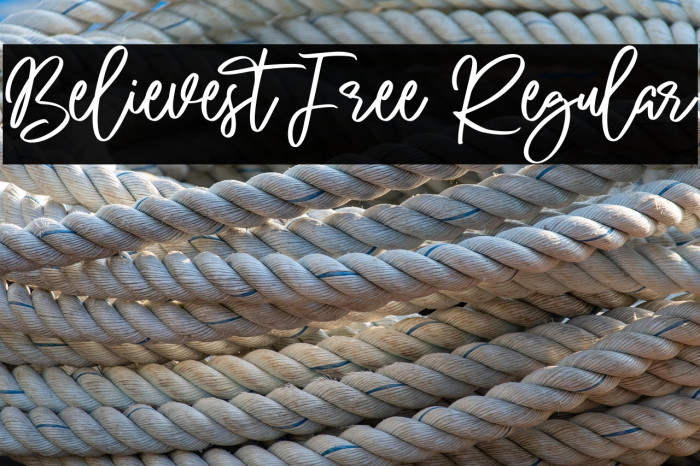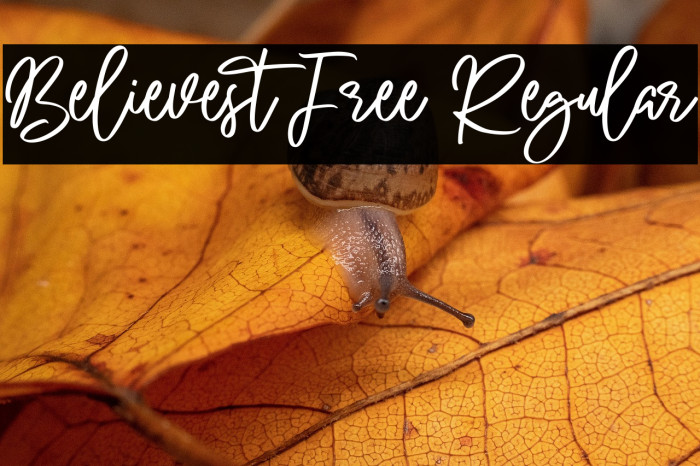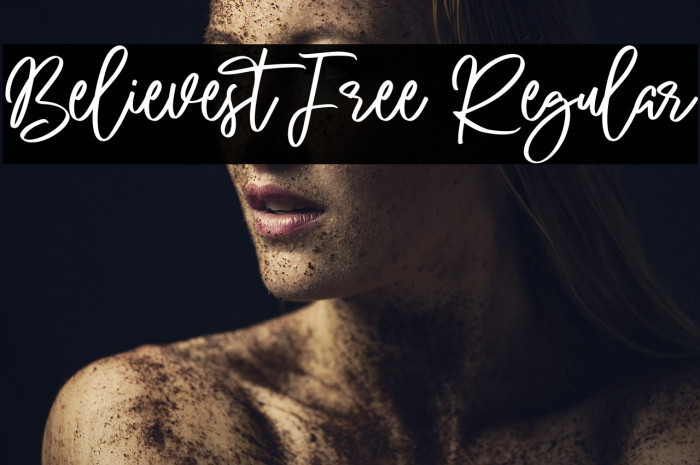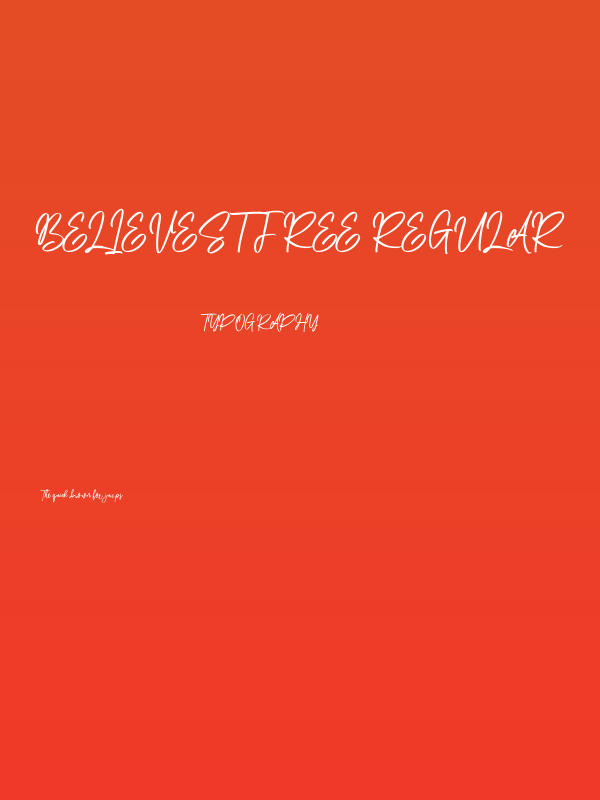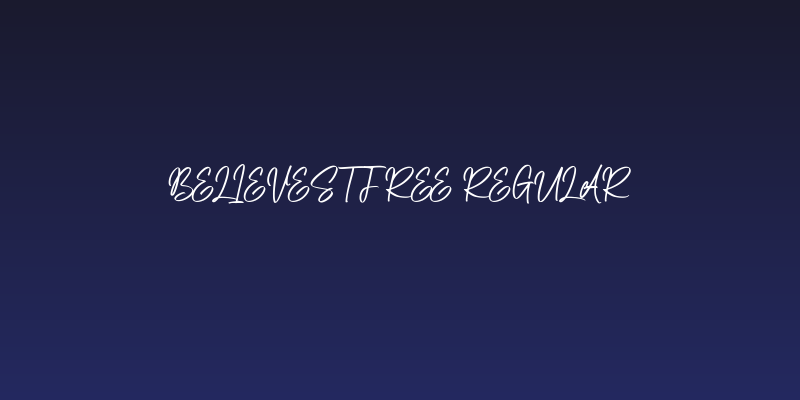
Believest Free Regular Font
Believest Free Regular Description
This font exudes a modern and elegant script style, characterized by its fluid and cursive letterforms. The uppercase letters are bold and slightly slanted, giving a dynamic and sophisticated appearance. The lowercase letters maintain a consistent flow, enhancing readability while preserving the artistic flair. The font's design is well-suited for creative and expressive projects, offering a personal touch with its handwritten aesthetic. The spacing between characters is balanced, ensuring clarity and legibility. This versatile font can be used in various design contexts, from branding to invitations.
| Proposed Projects | Ideal for wedding invitations, branding, logos, and social media graphics. |